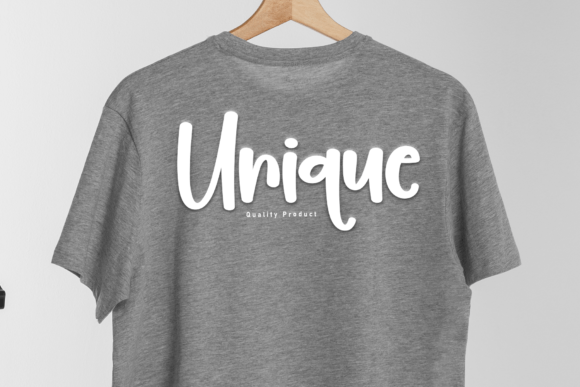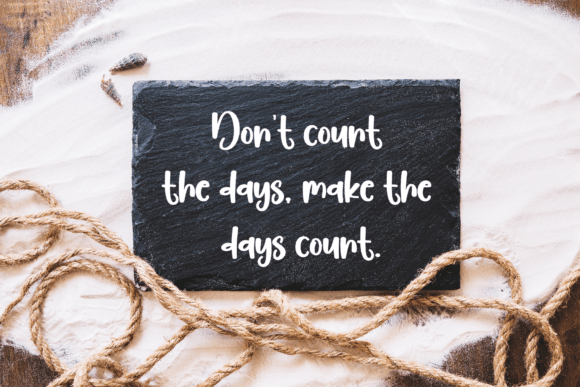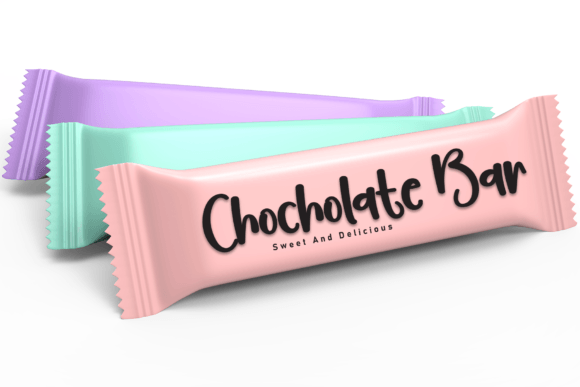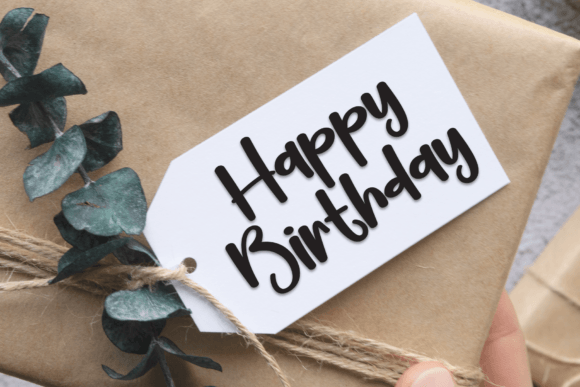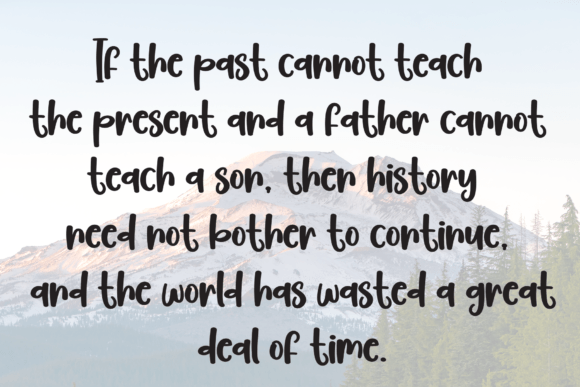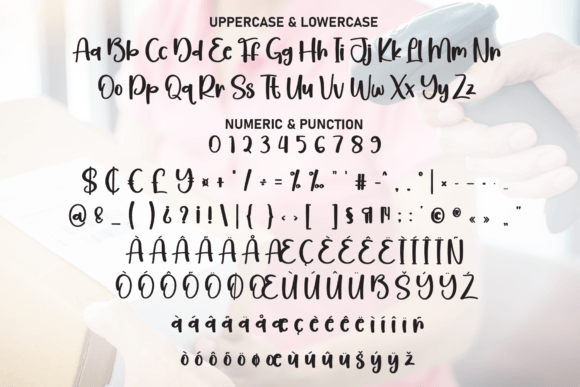
Introduction to Barcodes Font
Barcodes is a bold handwritten font with a casual and modern look.
Its thick, playful strokes make it easy to read and perfect for adding a personal touch to any design .